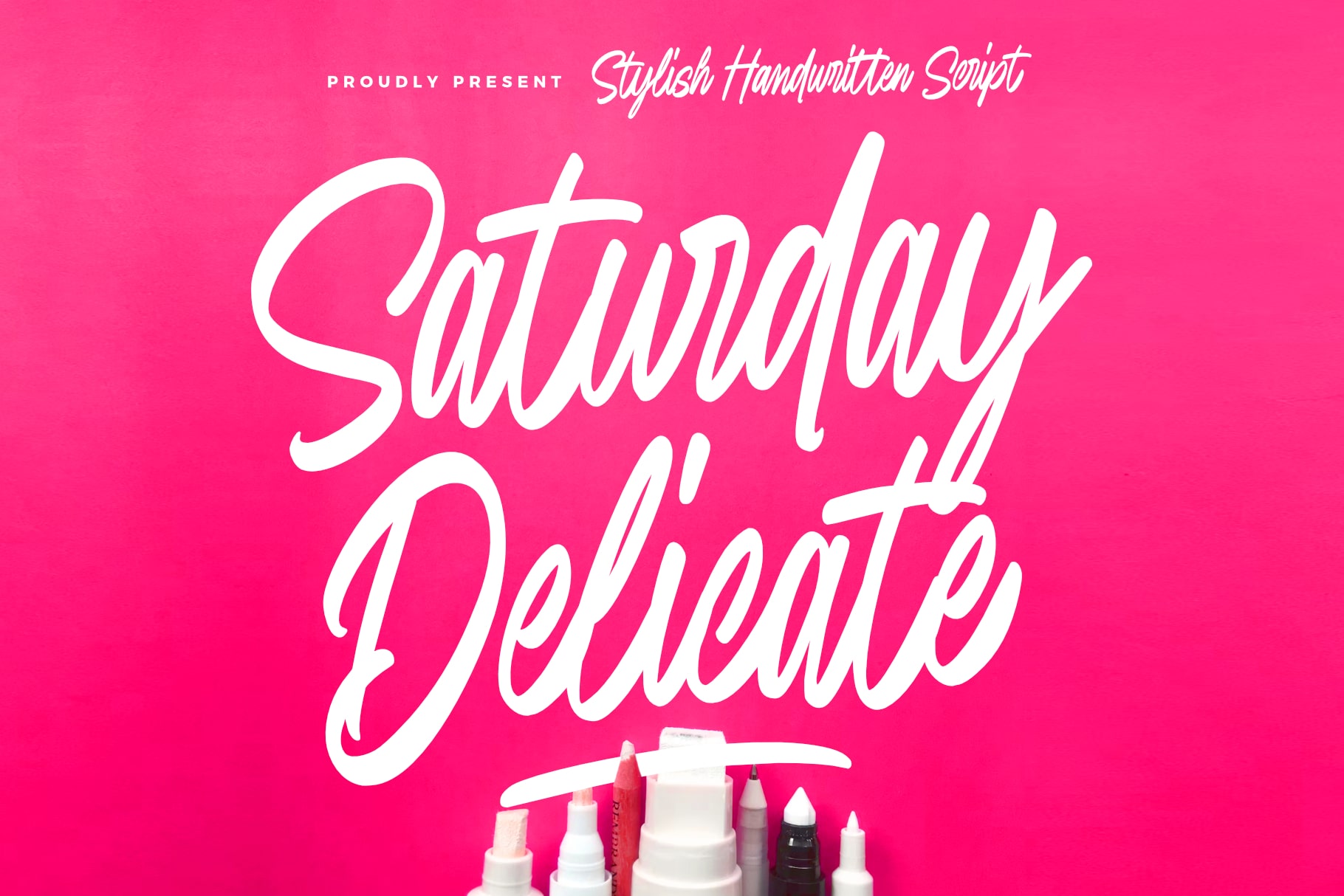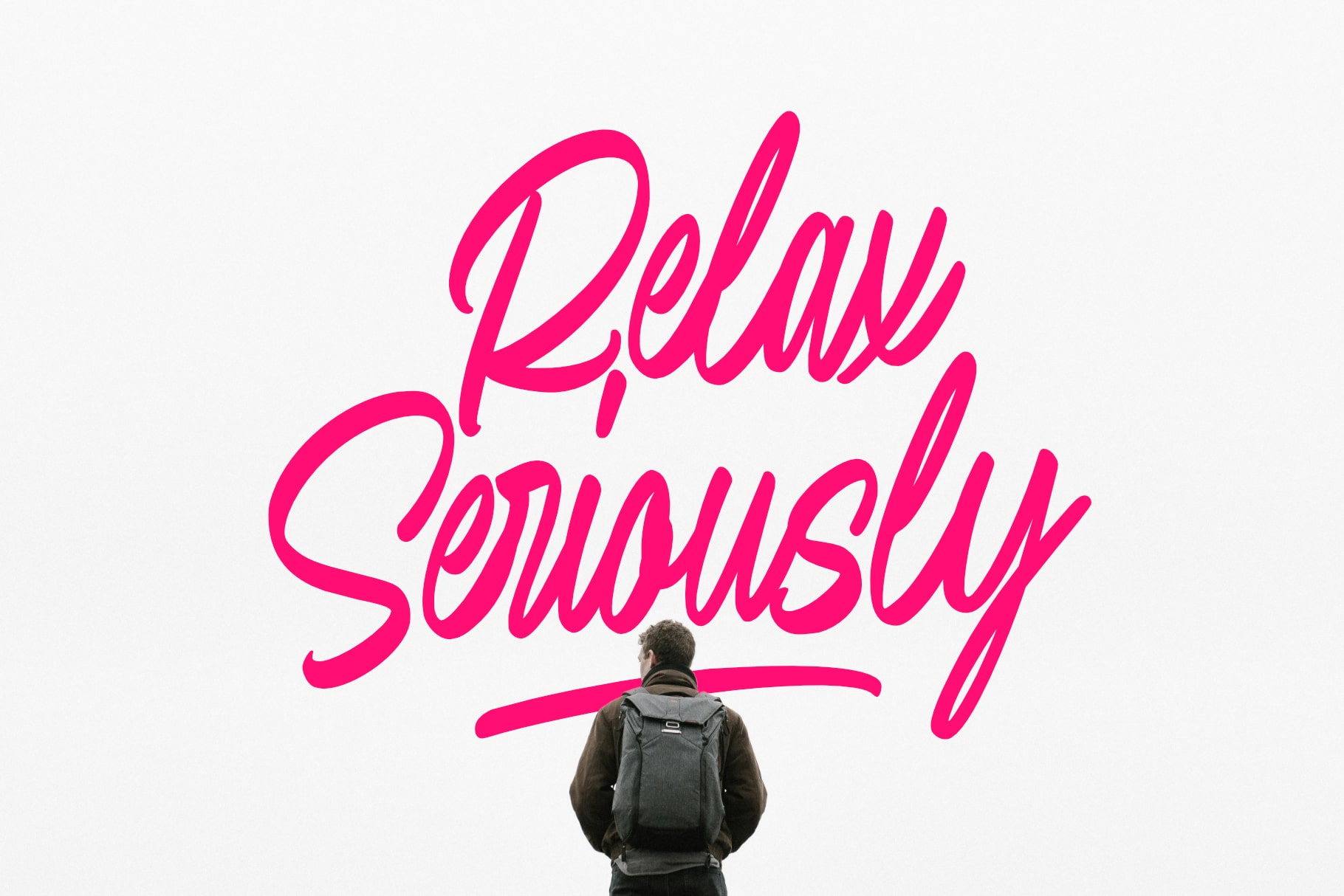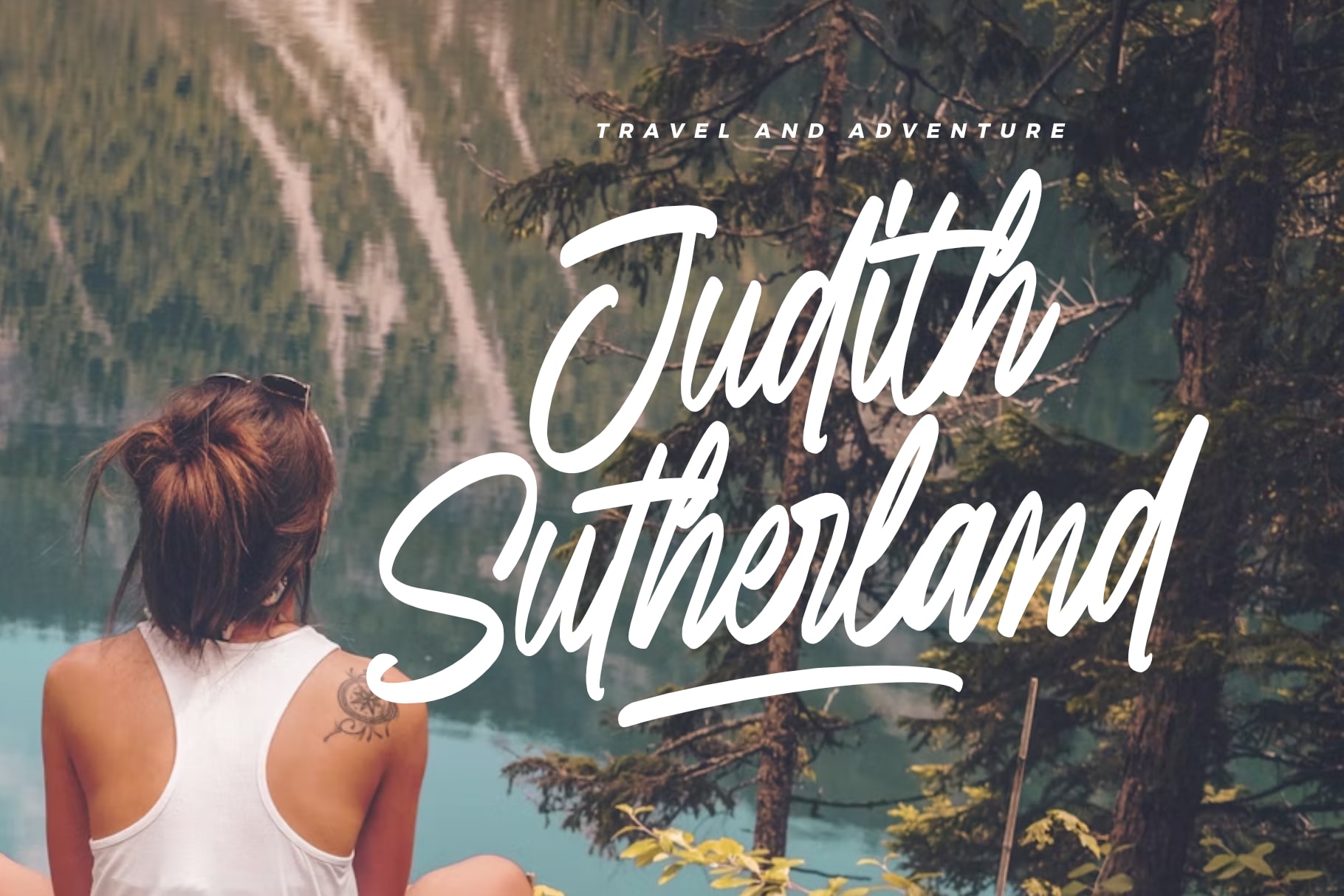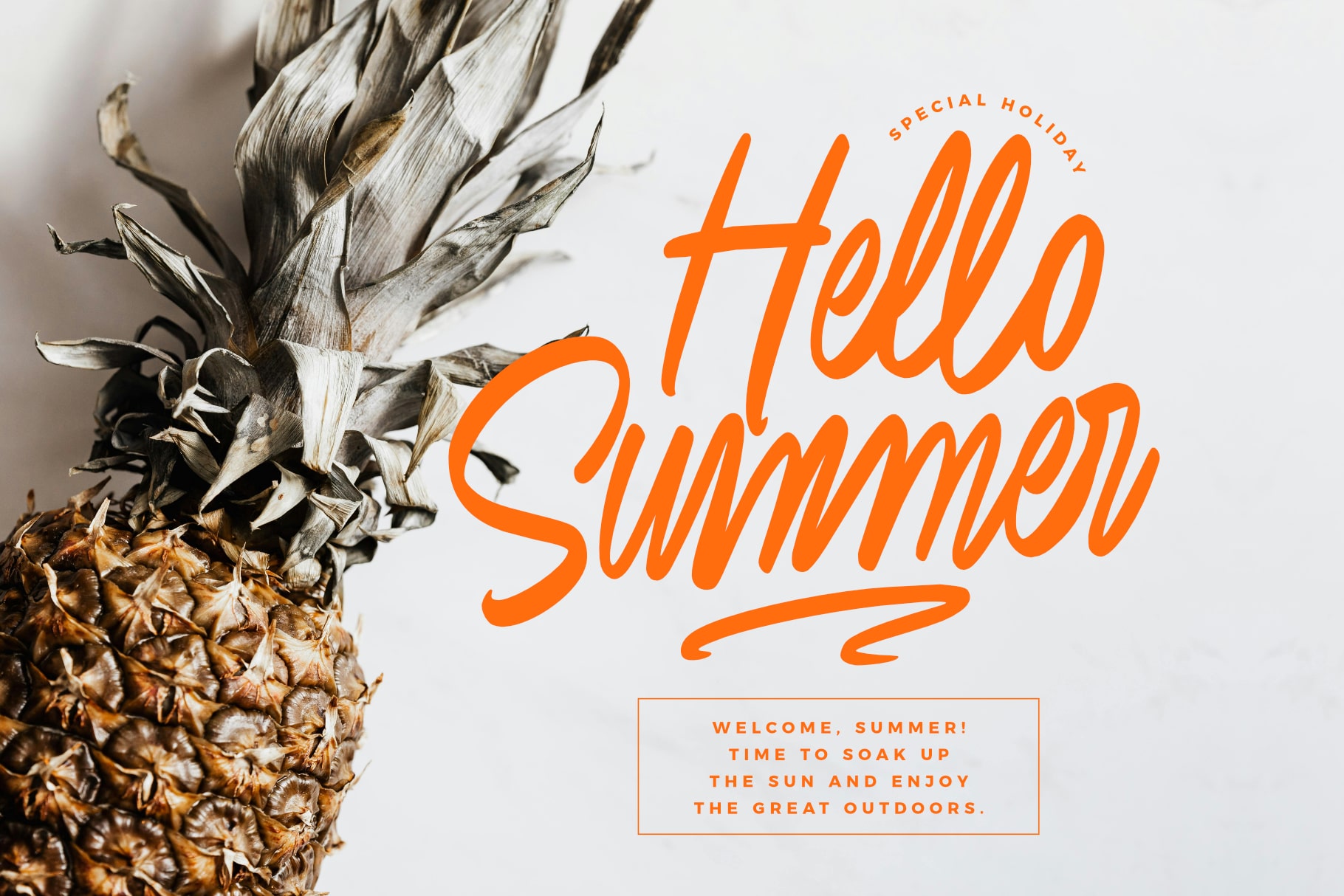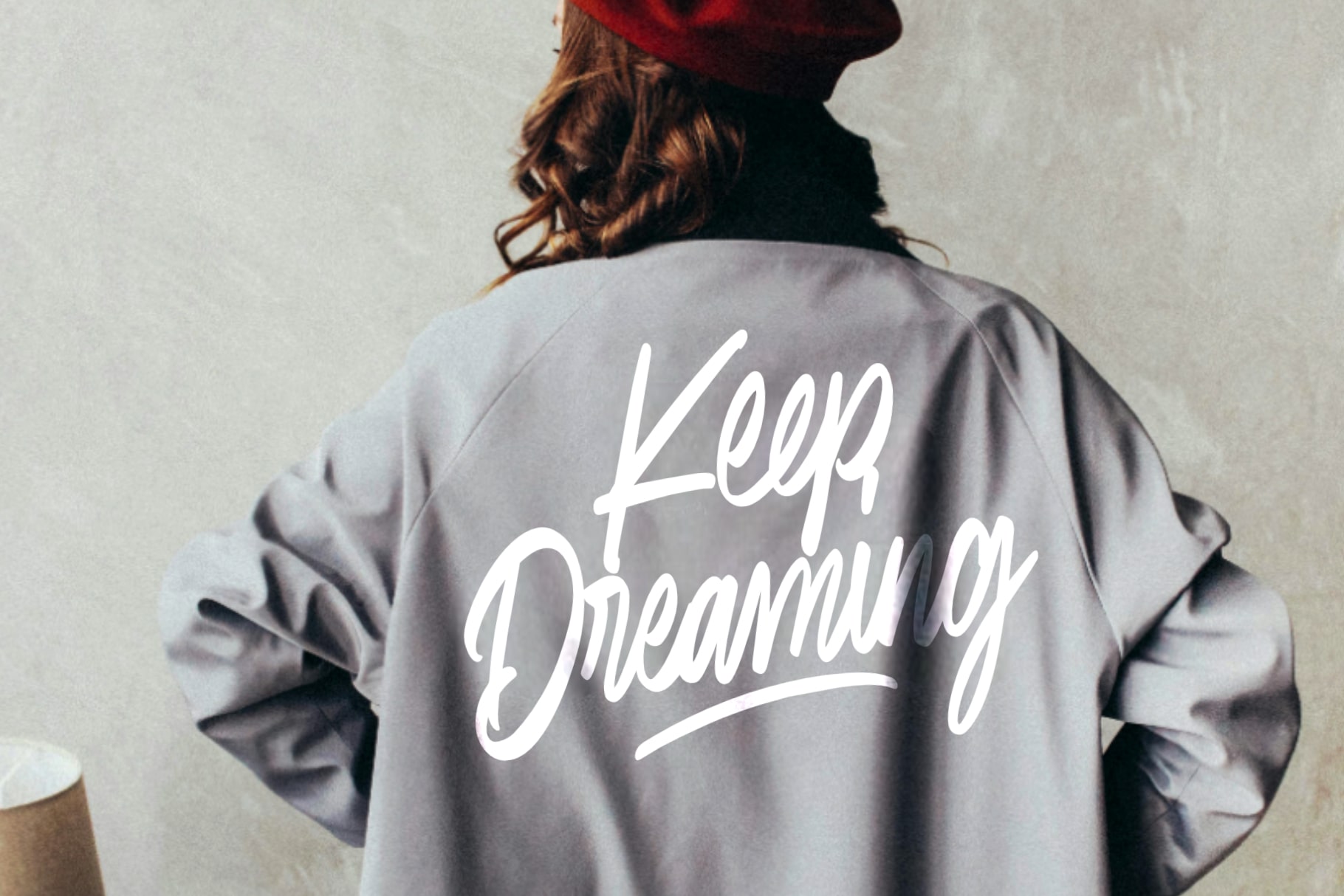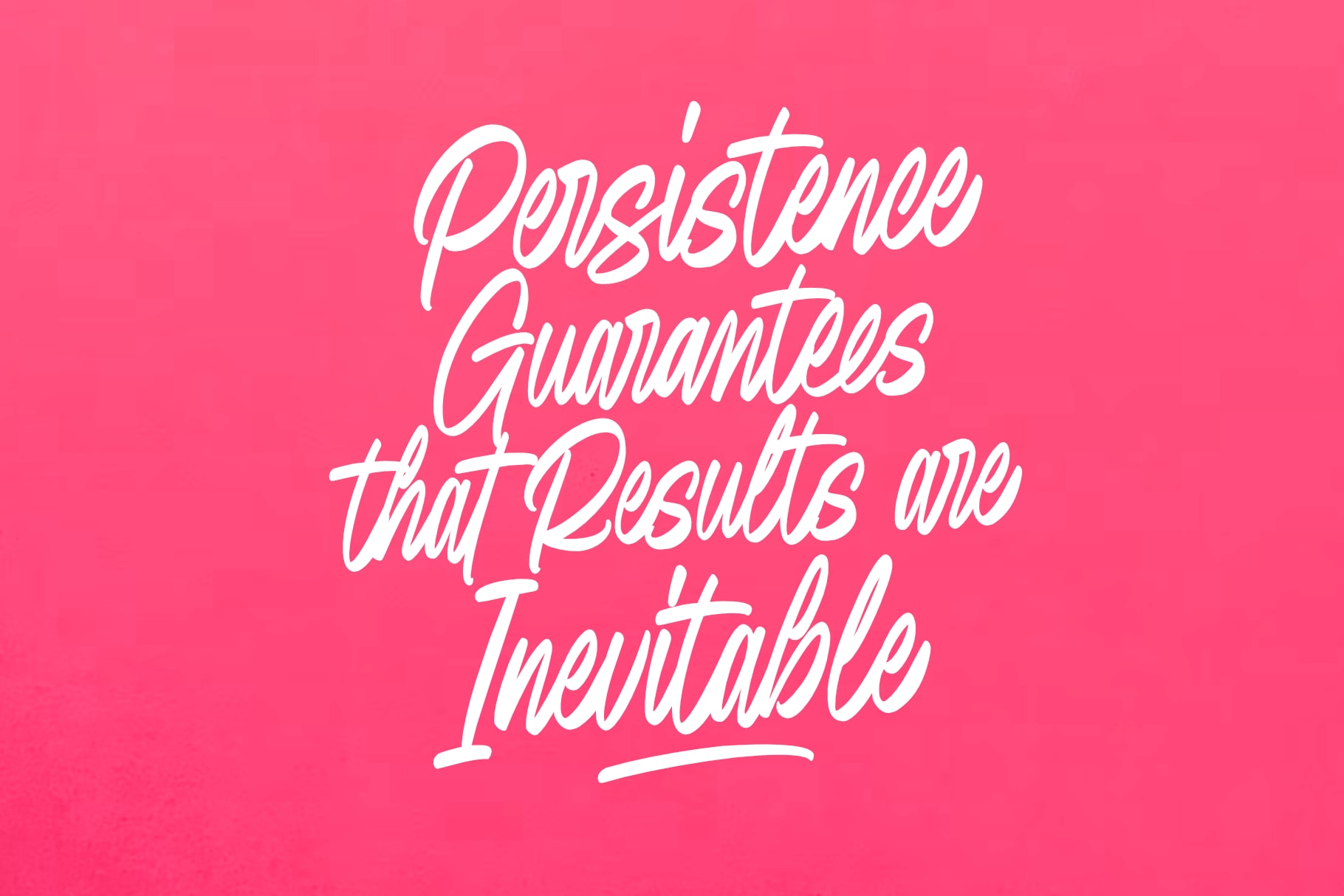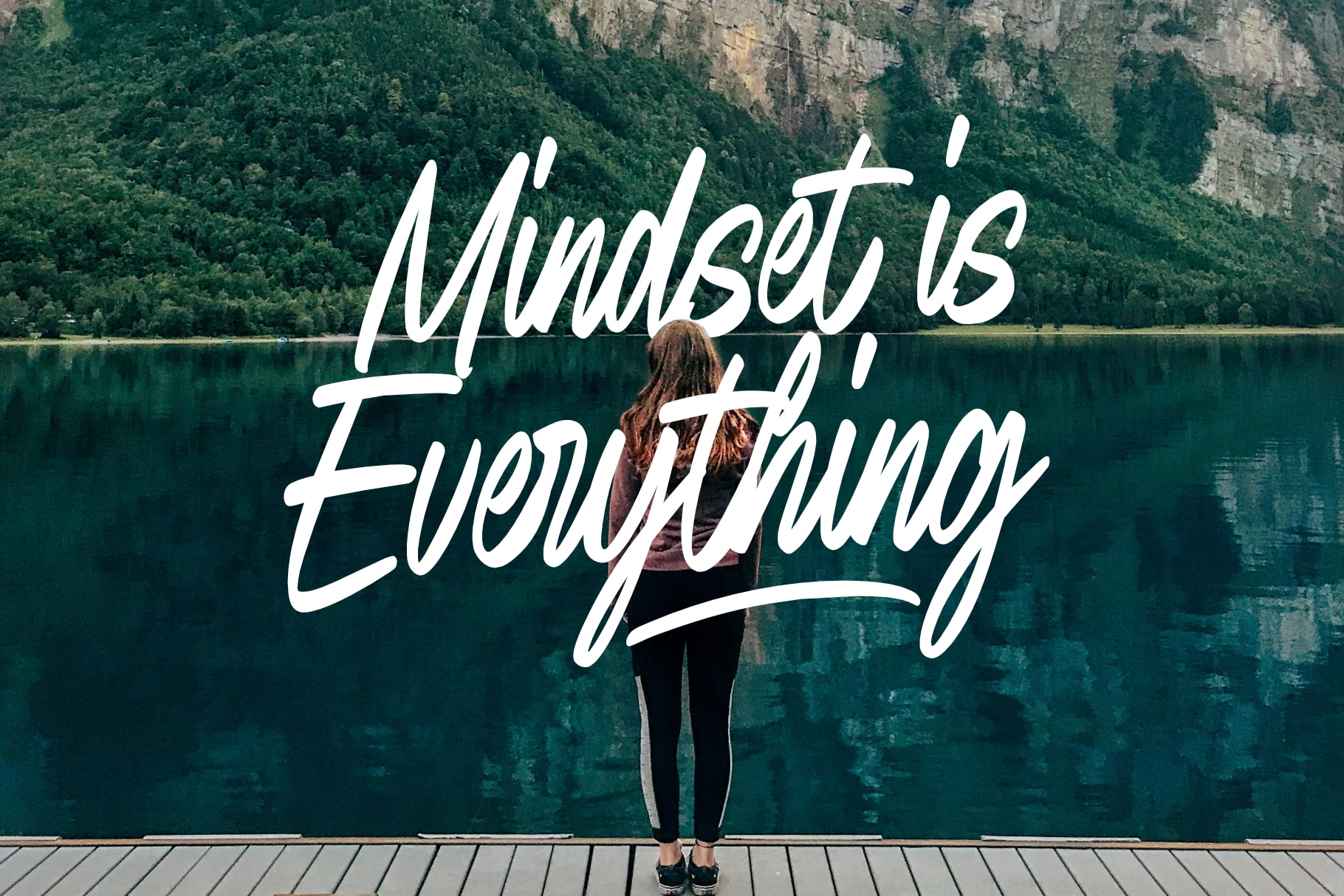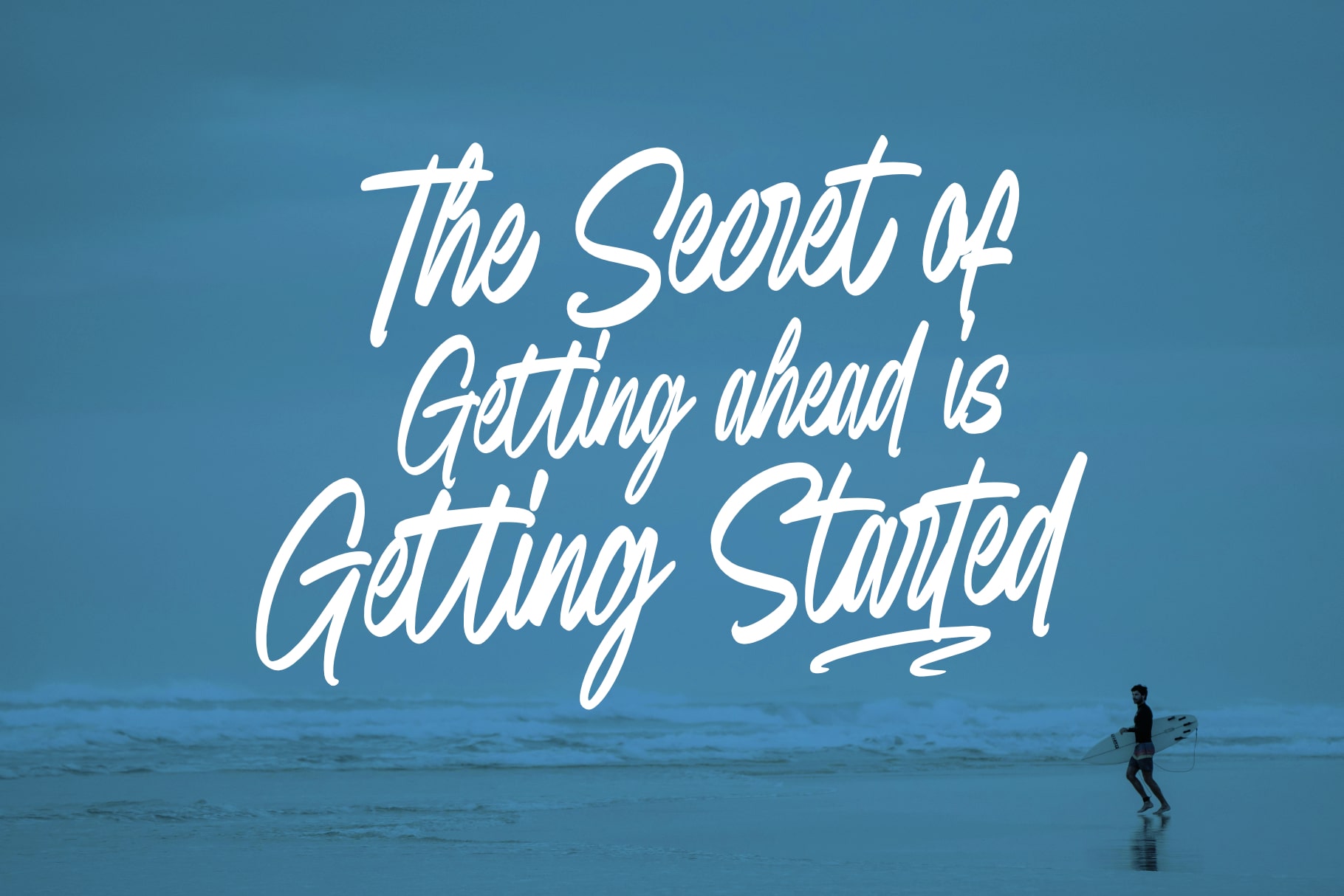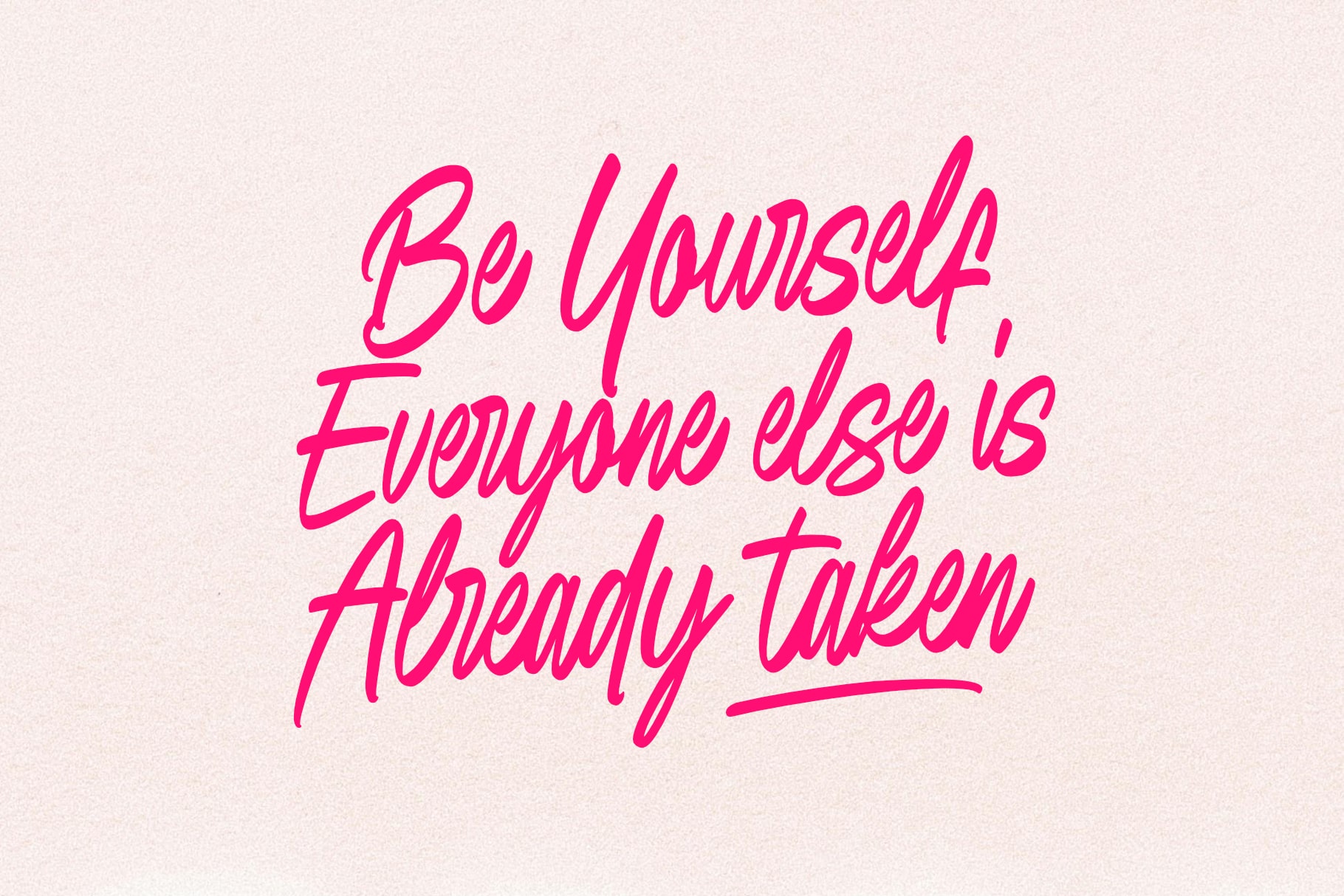
- Saturday Delicate stylish handwritten script
Saturday Delicate is a stylish and elegant handwritten script font that brings a touch of sophistication and charm to your designs. With its smooth, flowing strokes and meticulously crafted letterforms, this font captures the essence of refined handwriting, making it perfect for projects that require a blend of beauty and delicacy.